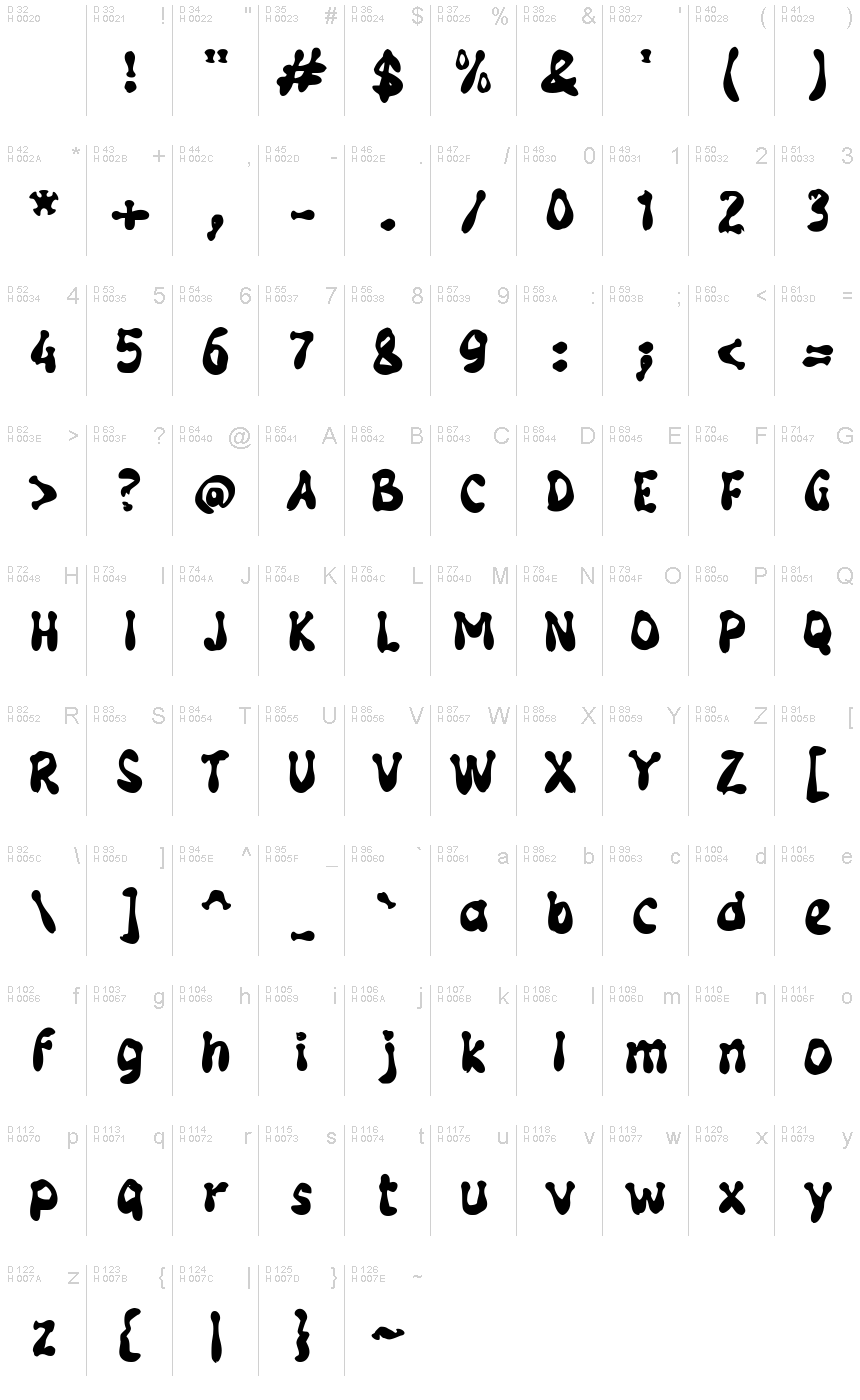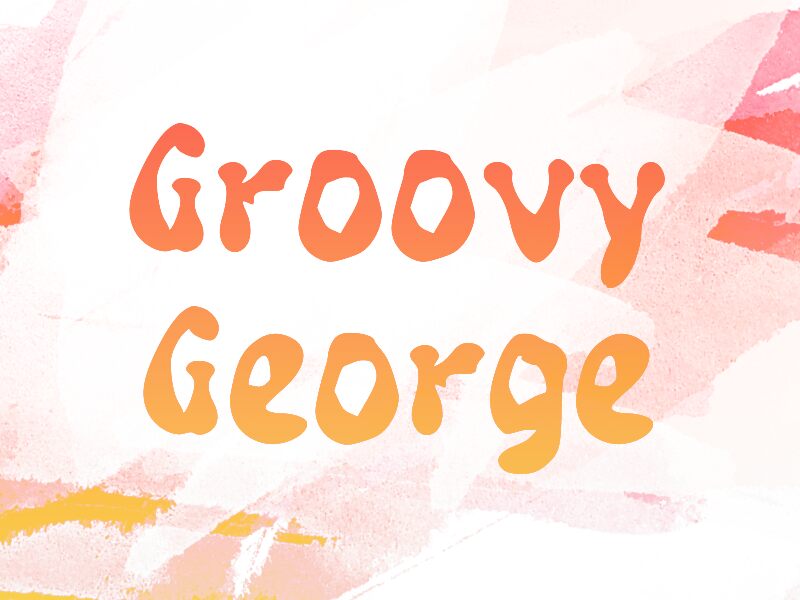
Groovy George
Groovy George, a bold and captivating display font crafted by designer wep, exudes a dynamic energy that commands attention. Its organic, handcrafted aesthetic evokes a sense of playfulness and retro-inspired charm, making it a standout choice for projects seeking a distinctive, eye-catching typographic presence.
The font's thick, expressive strokes and playful, slightly irregular curves lend it a spirited, almost whimsical character, perfect for adding a touch of personality to headlines, logotypes, or any design elements that require a strong, memorable visual impact. Groovy George's bold, confident appearance effortlessly captures the essence of its namesake, delivering a typographic experience that is both visually engaging and memorable.